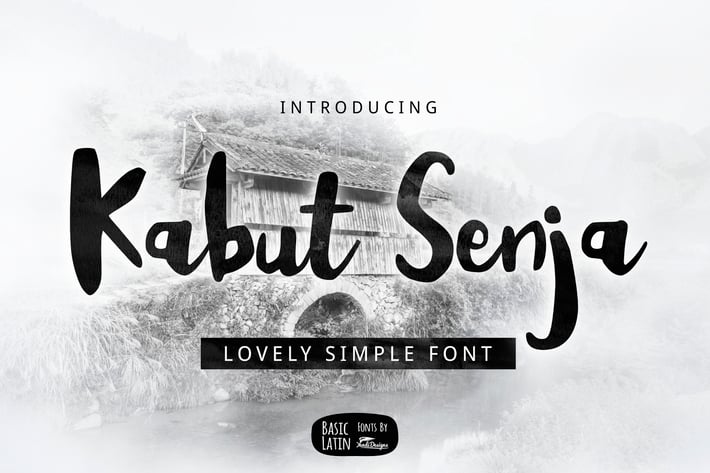
Kabut Senja Brush Font
Kabut Senja or in English "Twilight Mist" is lovely and simple artistic multipurpose brush font , suitable for many project children book, quotes, logo , heading , title etc.